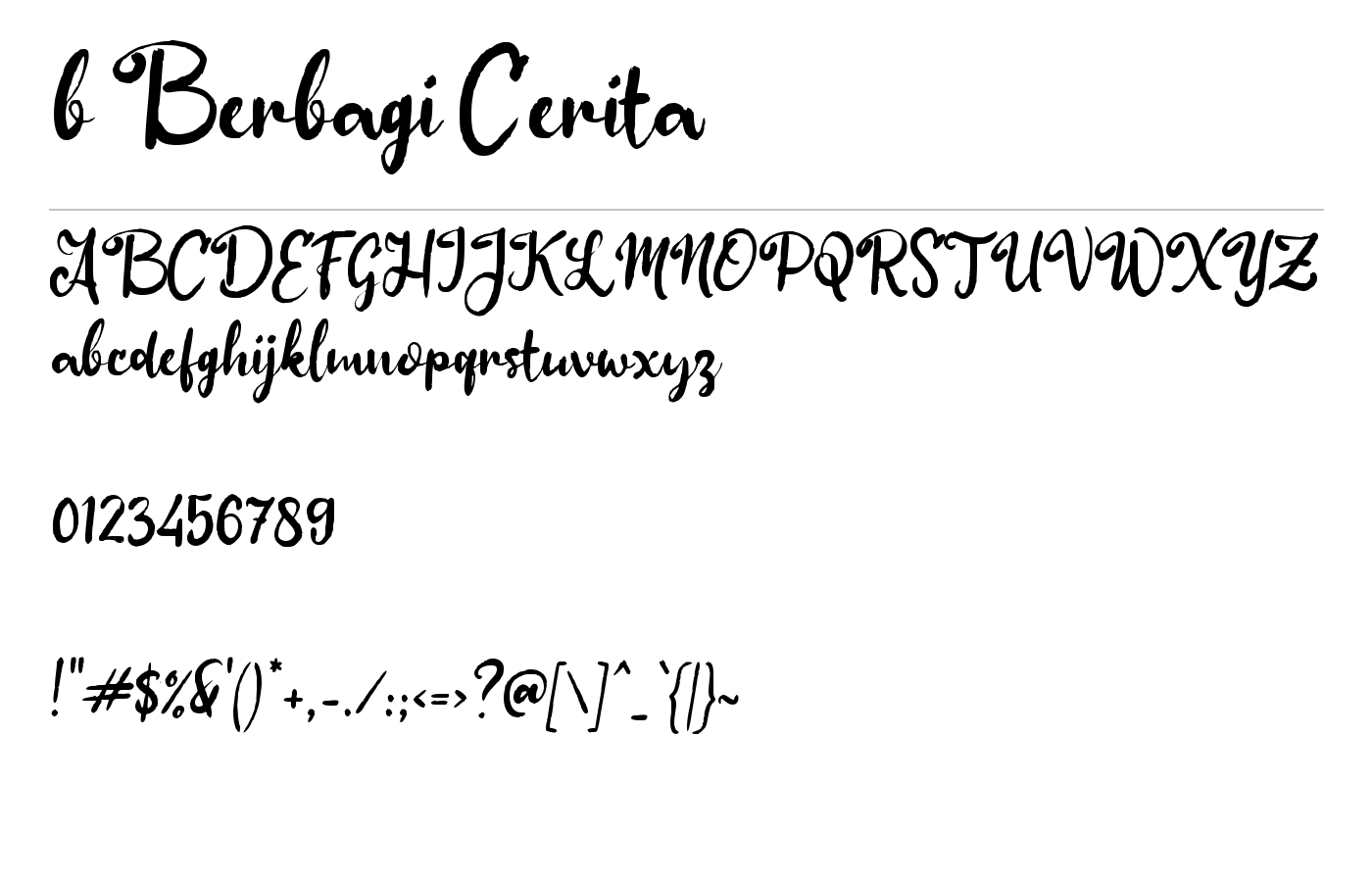
Berbagi Cerita is a playful and charming script font that features a hand-painted style with flowing, slightly irregular strokes and a warm, personal feel. Its medium weight and lively letterforms with distinctive swashes make it perfect for creative projects, invitations, branding, and any design seeking a friendly, artistic touch. This font works best in display settings where its unique character can shine and add a sense of handcrafted elegance.
b Berbagi Cerita Font
About b Berbagi Cerita Font